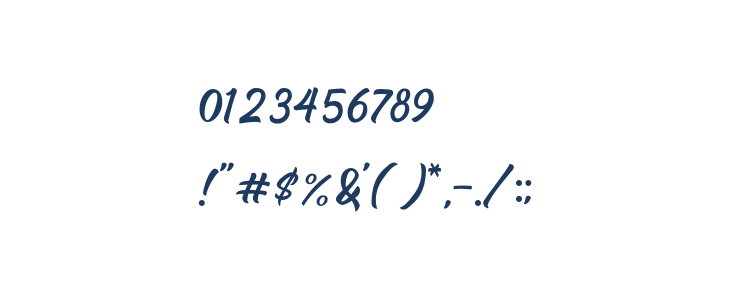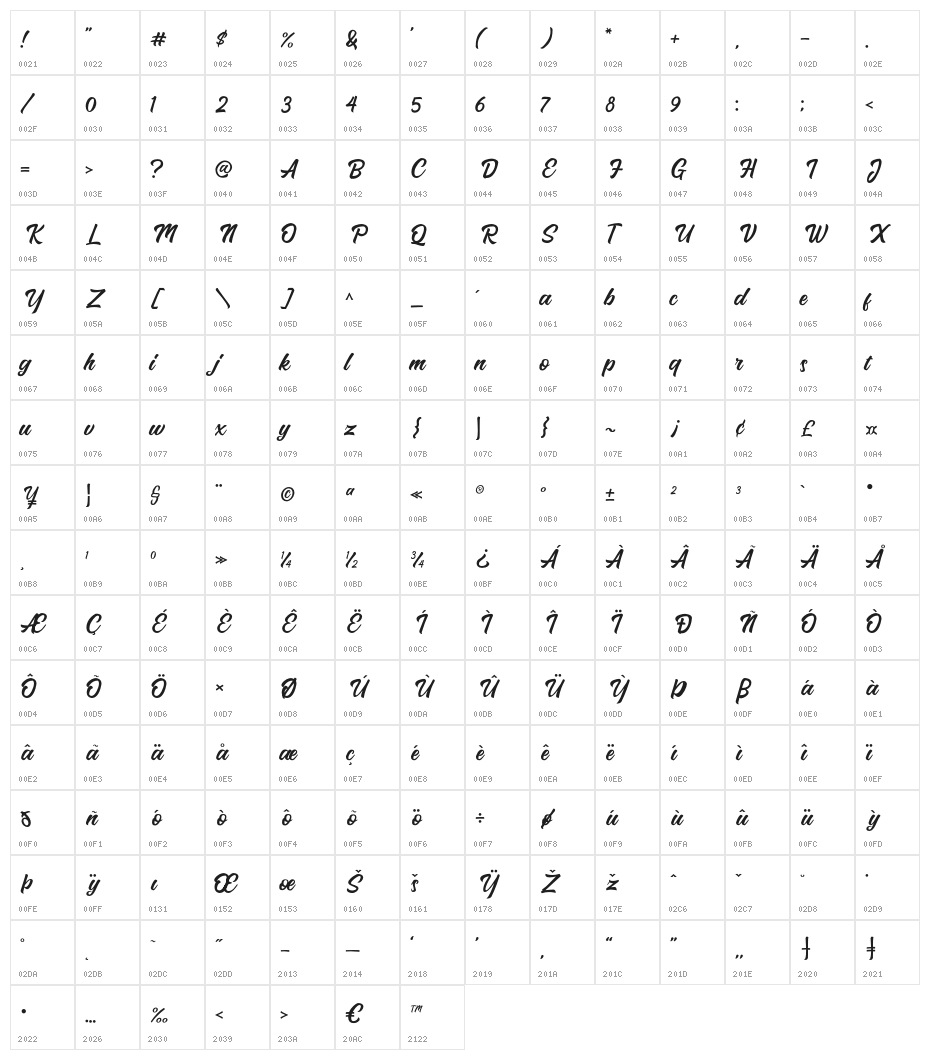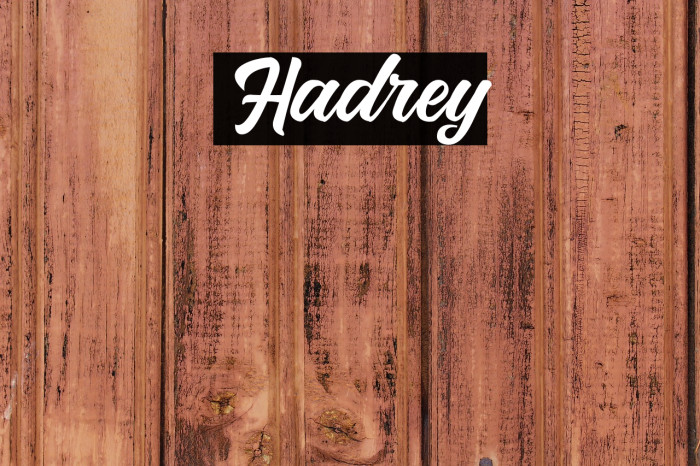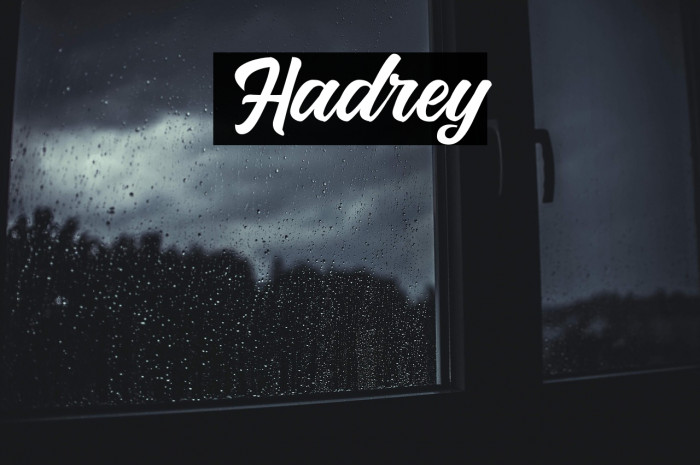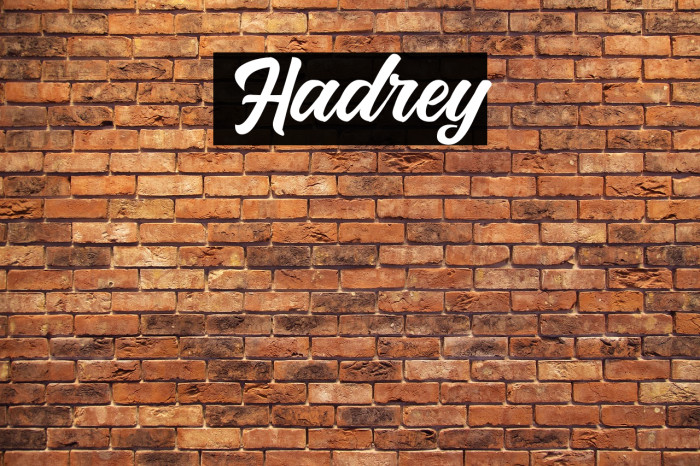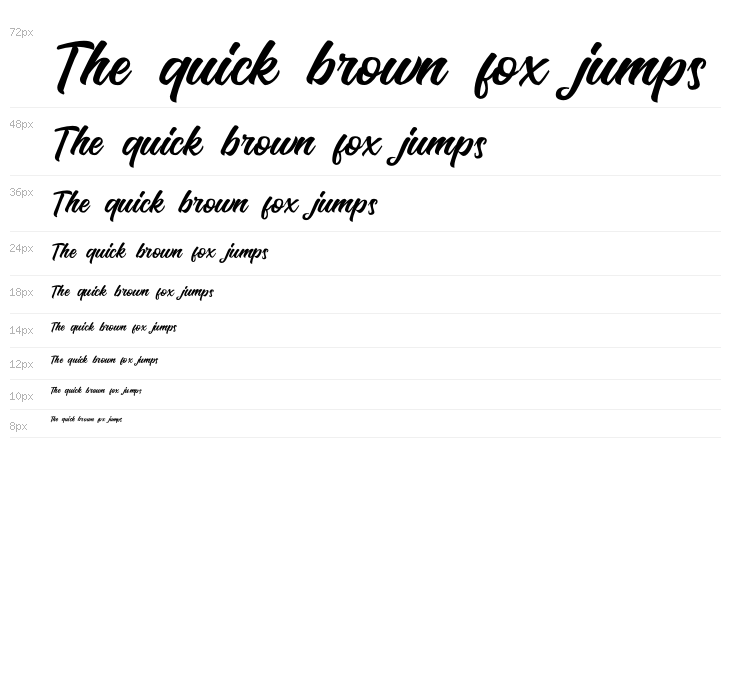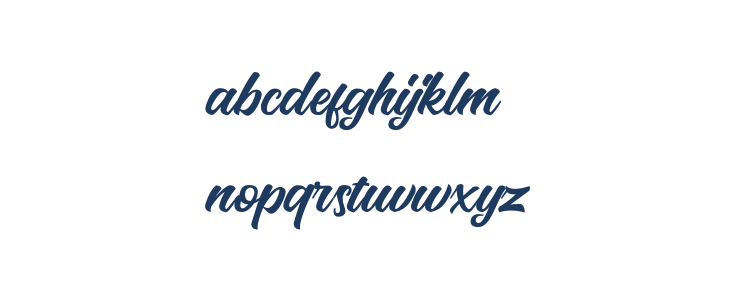
Hadrey Font
Hadrey Description
This font exhibits a bold and flowing script style, characterized by its elegant and cursive letterforms. The uppercase letters are prominently designed with sweeping curves and flourishes, giving a sense of movement and sophistication. The lowercase letters maintain a consistent flow, complementing the uppercase with their smooth and connected strokes. The numerals and special characters are crafted to match the overall cursive aesthetic, ensuring a cohesive look across all glyphs. This font is ideal for projects that require a touch of elegance and personality, such as invitations, branding, and decorative purposes.
| Overall Style | Elegant, Decorative |
| Use Case | Logos, Invitations, Decorative text |
| Proposed Projects | Ideal for wedding invitations, branding, logos, and decorative designs. |